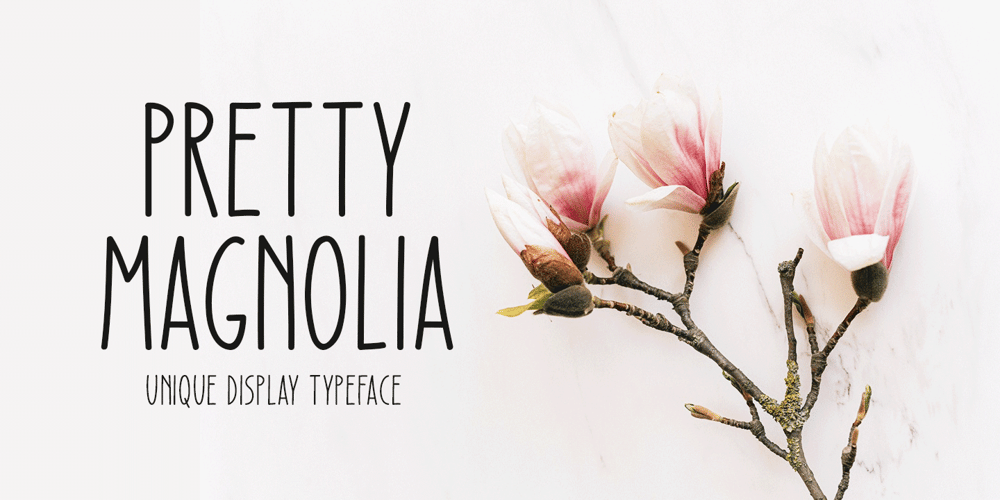
Pretty Magnolia
Pretty Magnolia font
Pretty Magnolia Font Family was designed by Md Shohail Bhuian and published by Seemly Fonts. Pretty Magnolia contains 1 styles and family package options. Pretty Magnolia is a sweet and unique display font. It can easily be matched to an incredibly large set of projects, so add it to your creative ideas and notice how it makes them stand out!